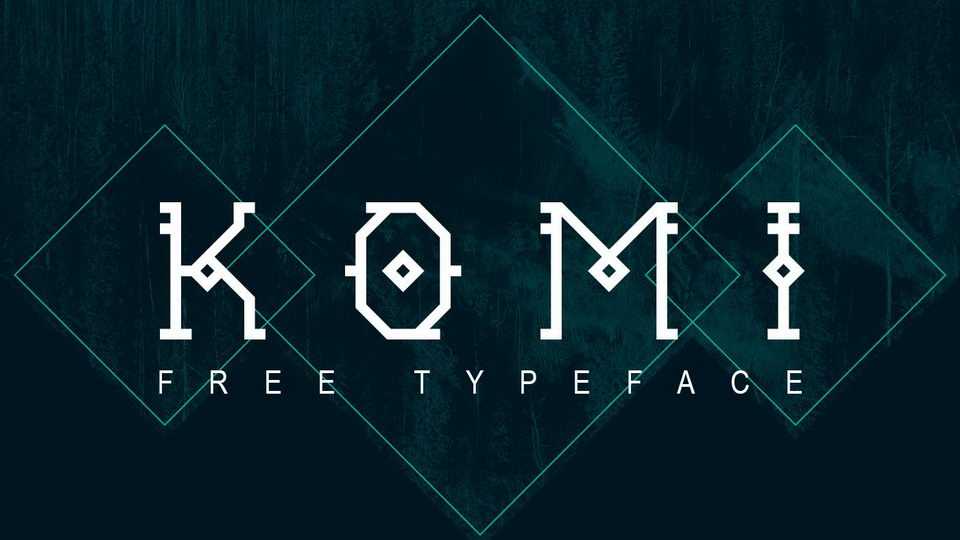
Komi is a unique decorative font inspired by Komi Republuc culture.It is perfect for creative designs, logos, branding elements, posters and prints and other artworks.